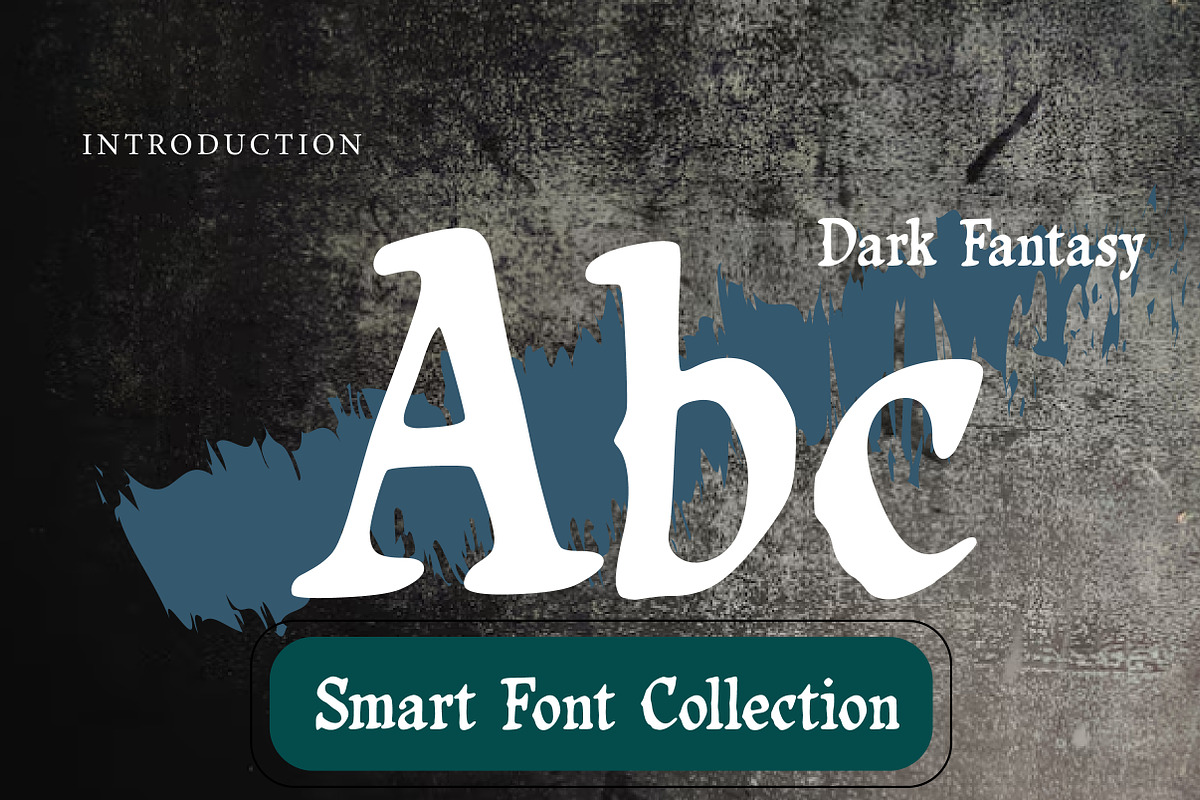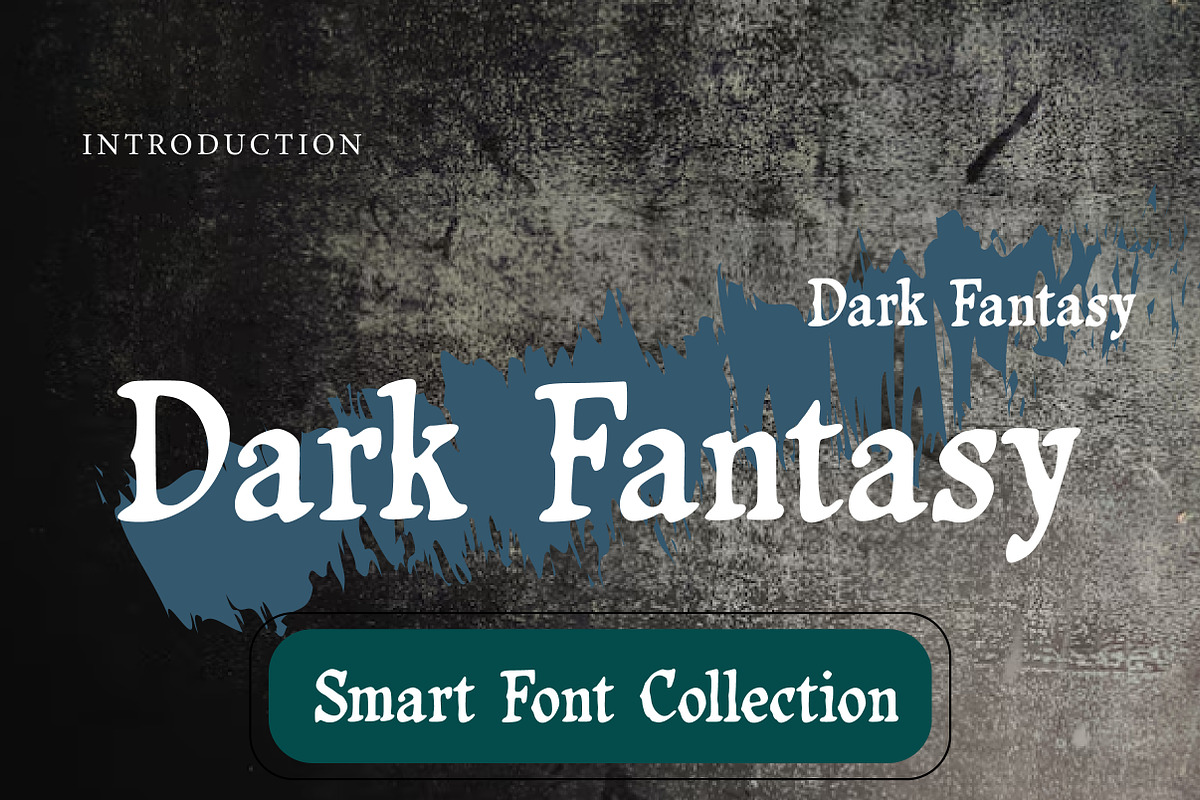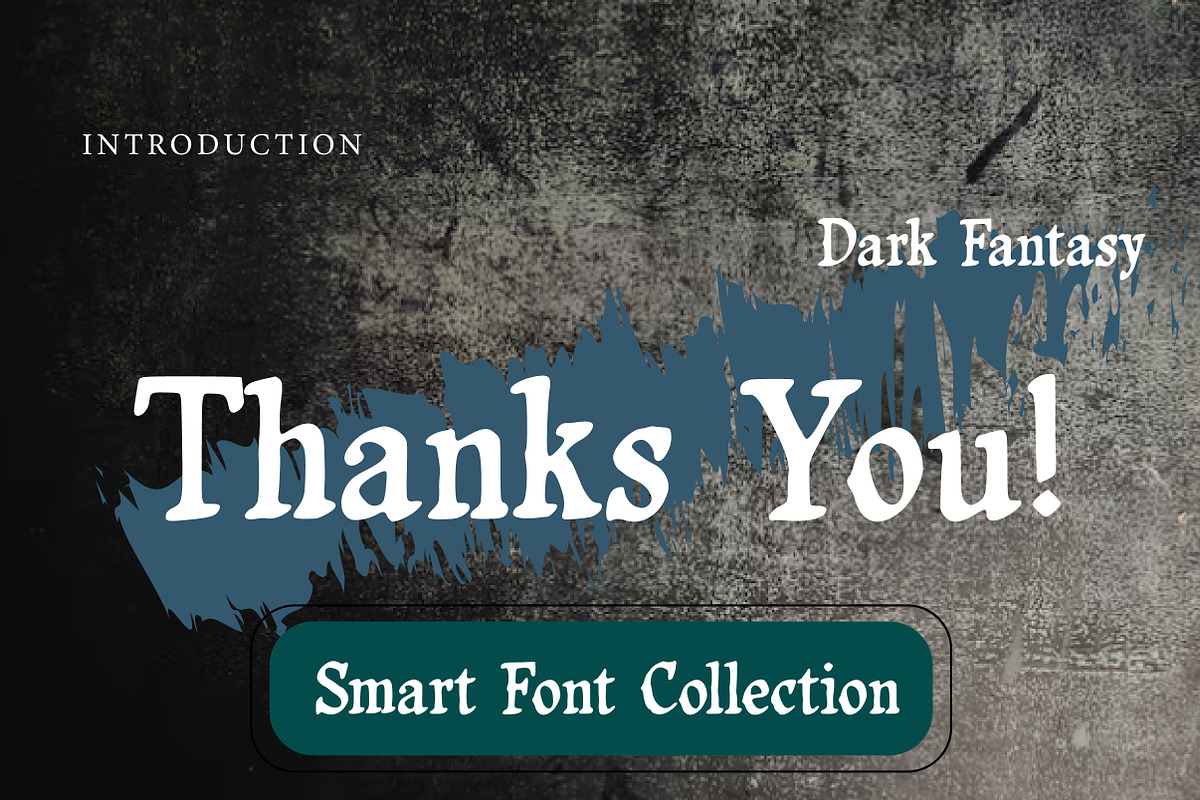
Dark fantasy
Dark Fantasy is a bold gothic-inspired display serif font designed for mysterious, dramatic, and story-driven visuals. With sharp yet organic serif details, slightly rough medieval character, and a strong classic structure, this typeface delivers an atmospheric “dark tale” mood—perfect for fantasy worlds, eerie titles, and intense branding.
Ideal for fantasy book covers, RPG/gaming titles, horror posters, movie/series title cards, YouTube thumbnails, album artwork, and dark-themed logos. Whether you’re creating a magical kingdom concept, a cursed legend design, or a gothic brand identity, Dark Fantasy brings power, mystery, and cinematic depth to your typography.
Dark Fantasy & Gothic Book Covers
RPG / Gaming Titles & Logos
Horror Posters & Cinematic Titles
Album Art & Band Branding
YouTube Thumbnails & Social Graphics
Medieval / Mythic Designs
Merchandise & Statement Headlines